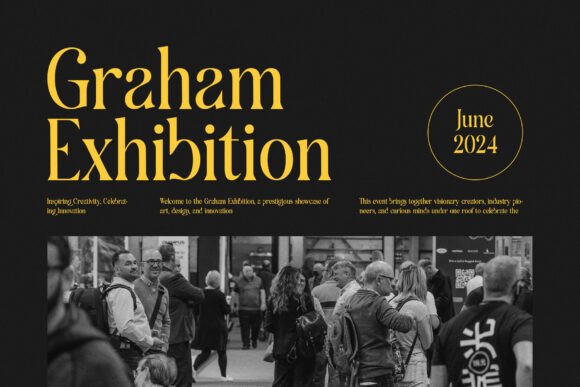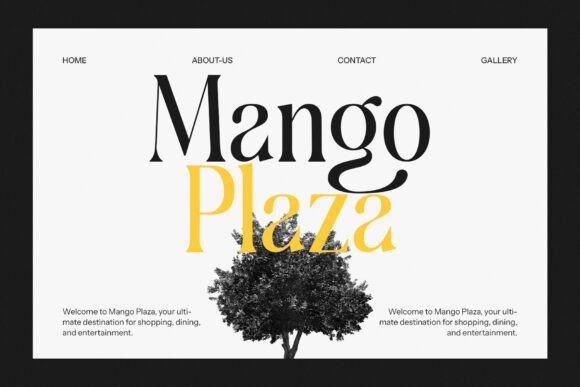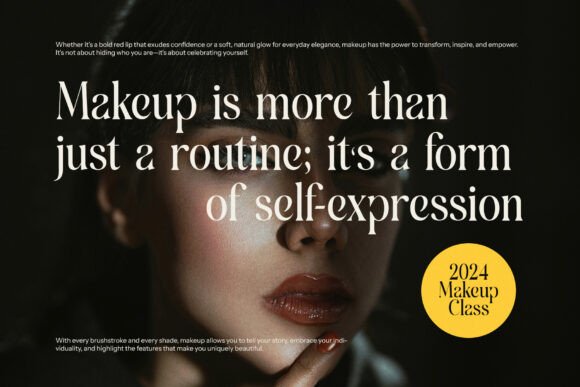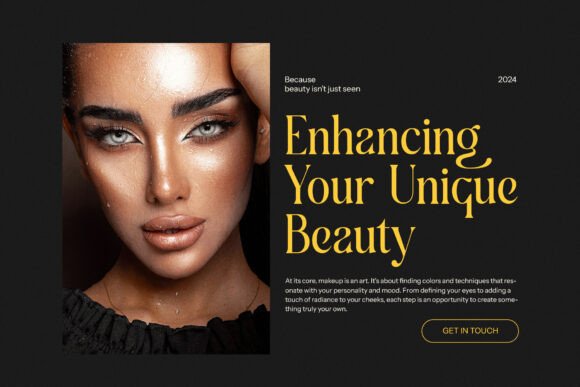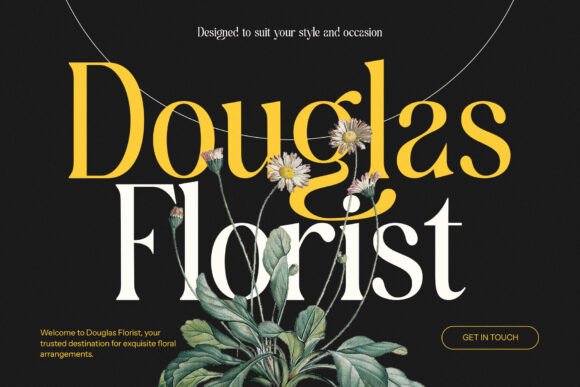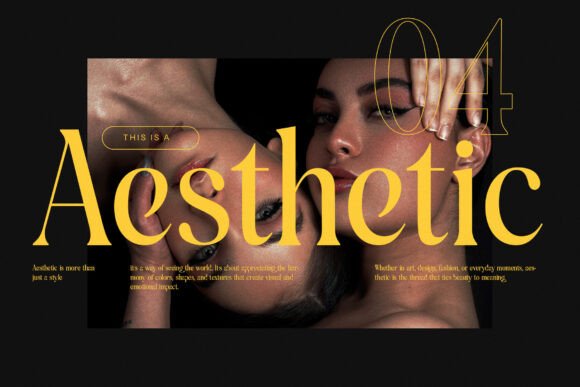
Discover the Elegance of Gligat Font: A Modern Typeface for Sophisticated Designs
In the world of typography, a font can make or break a design. It’s the foundation upon which the entire visual identity of a project is built. For designers and crafters seeking a typeface that embodies both modernity and timeless elegance, Gligat Font stands out as an exceptional choice. This refined and contemporary typeface seamlessly blends modern design sensibilities with classic sophistication, making it an ideal selection for a wide range of creative applications.
The Unique Characteristics of Gligat Font
Gligat Font is distinguished by its unique serifs and meticulously crafted letterforms. These features not only set it apart from more traditional typefaces but also contribute to its sleek and stylish appeal. The serifs, often a defining characteristic of serif fonts, are in Gligat’s case, designed with a contemporary twist. This gives the font a fresh look that can easily complement modern design projects while still offering the readability and classic feel that serif fonts are known for.
One of the key advantages of Gligat Font is its versatility. Its sophisticated yet approachable design makes it suitable for a variety of applications. Whether you’re working on a logo, a brand identity, or any other design project, Gligat can add a touch of elegance and professionalism. Here are some areas where Gligat Font truly shines:
- Logos and Brand Identities: For businesses looking to establish a strong and sophisticated brand image, Gligat can be a valuable asset. Its unique design ensures that your logo stands out while conveying a sense of professionalism and elegance.
- Web Design: In the digital realm, typography plays a crucial role in user experience. Gligat’s readability and stylish appearance make it an excellent choice for website headers, titles, and even body text, ensuring a cohesive and engaging user experience.
- Print Design: From brochures and magazines to business cards and posters, Gligat Font can elevate your print designs with its classic yet contemporary feel.
- Packaging: For product packaging, standing out on shelves is crucial. Gligat’s distinctive look can help your product packaging design capture attention and convey a sophisticated brand image.
Why Choose Gligat Font?
Choosing a font for your design project involves considering numerous factors, including readability, uniqueness, and how well it aligns with your project’s overall aesthetic. Gligat Font checks all these boxes and more:
- Readability: Despite its elegant and refined design, Gligat maintains high readability, making it suitable for both headings and body text.
- Uniqueness: In a sea of typefaces, Gligat’s distinctive serifs and letterforms ensure that your design stands out.
- Flexibility: Gligat can be used across various design projects, from digital applications to print, offering flexibility in your design work.
How to Use Gligat Font Effectively
To maximize the potential of Gligat Font in your designs, consider the following tips:
- Mix and Match: Don’t be afraid to experiment with different weights and styles of Gligat to create visual hierarchy and interest in your designs.
- Pair Wisely: When pairing Gligat with other fonts, choose typefaces that complement its modern yet classic feel. A sans-serif font for body text can create a nice contrast.
- Consider Context: Always consider the context in which your design will be used. Adjust font sizes, weights, and colors to ensure your design communicates effectively across different mediums.
Gligat Font is a versatile and sophisticated typeface that can elevate any design project. Its unique blend of modern design sensibilities and timeless elegance makes it a valuable asset for designers and crafters. Whether you’re creating a brand identity, designing a website, or working on print materials, Gligat offers the perfect combination of style, readability, and uniqueness. By incorporating Gligat Font into your designs, you can ensure a professional and captivating visual identity that stands out in any context.